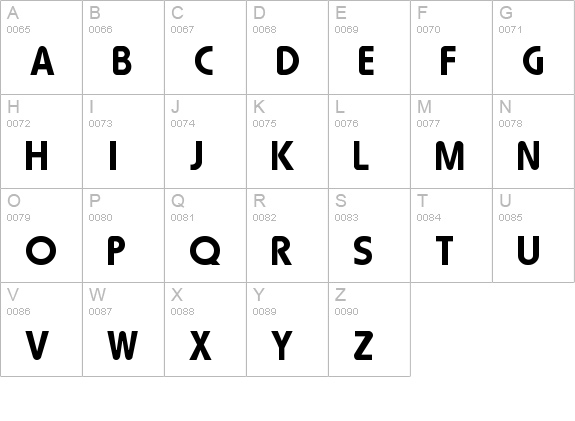
QTHowardTypeFat Regular Font Details
QTHowardTypeFat Regular is the standard, neutral variant in the QTHowardTypeFat typeface family \xE2\x80\x94 well suited to general body text, paragraphs, and standard typographic work.
QTHowardTypeFat Regular is a sleek and stylish font that exudes confidence and modernity. With its bold and rounded letterforms, this font is perfect for adding a touch of sophistication to any design project. This font boasts a unique combination of curves and straight lines, creating a harmonious balance that catches the eye. The thick strokes give it a strong presence, making it perfect for headlines, logos, and branding materials. Not only does QTHowardTypeFat Regular look great, but it is also incredibly versatile. It can be used for both print and digital designs, ensuring that your message stands out no matter the medium. From posters to websites, this font will make a lasting impression. The best part is that QTHowardTypeFat Regular is available for free download at FontsMarket.com. Whether you're a professional designer or a hobbyist, you can add this stunning font to your collection without breaking the bank. So why wait? Go ahead and grab your copy today and unleash your creativity with QTHowardTypeFat Regular.